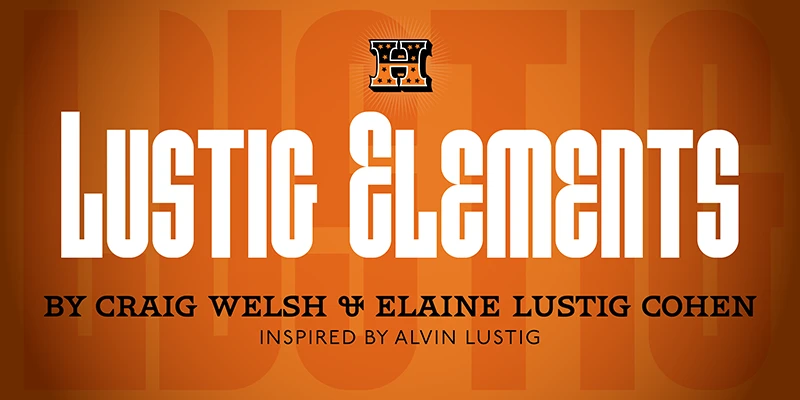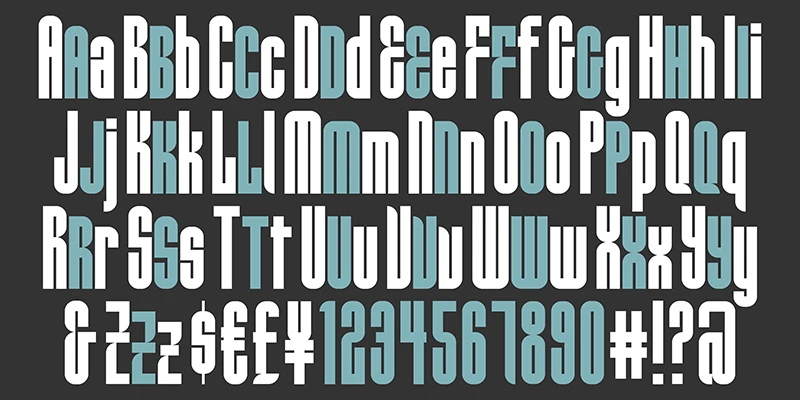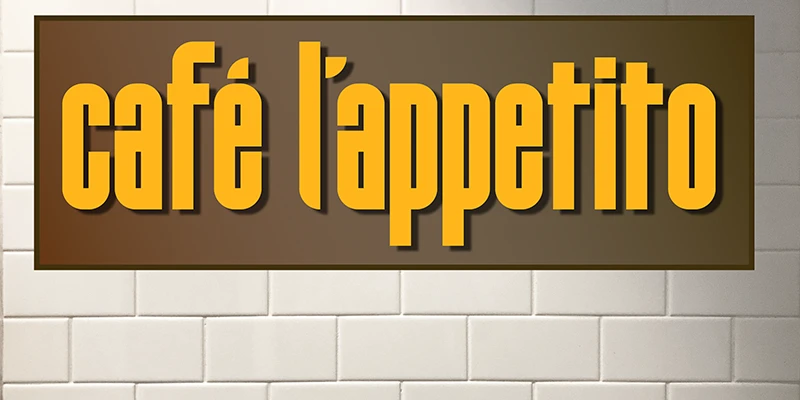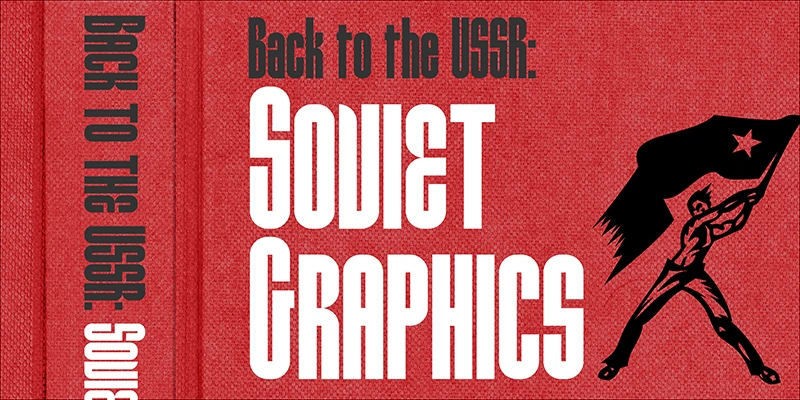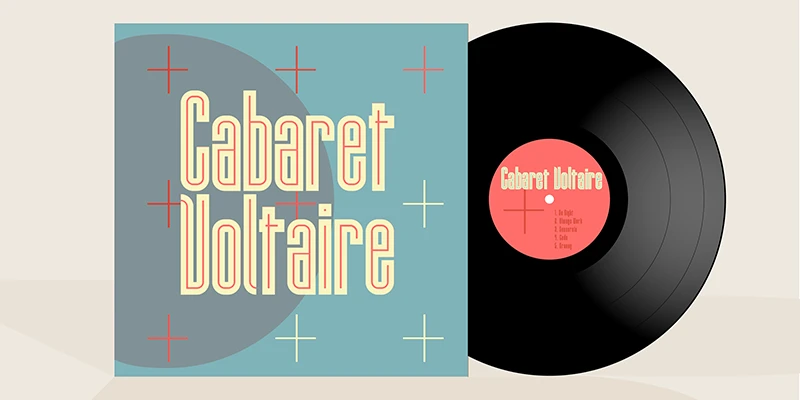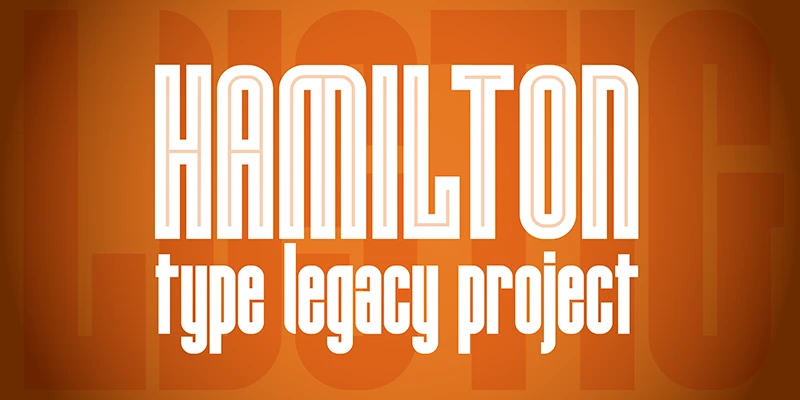
Lustig Elements
From Hamilton Wood Type Collection
HWT Lustig Elements is a testament to innovative design. Over five years, Craig Welsh meticulously crafted this typeface inspired by the mid-century designer Alvin Lustig’s Euclid. This name also pays tribute to designer Elaine Lustig Cohen, who collaborated on its development. Lustig Elements defies rigidity with unconventional shapes, resulting in unexpected quarter-circle accents and a vibrant neon inline style, adding a touch of surprise to its geometric foundation.
Designed by Alvin Lustig, Elaine Lustig Cohen & Craig Welsh